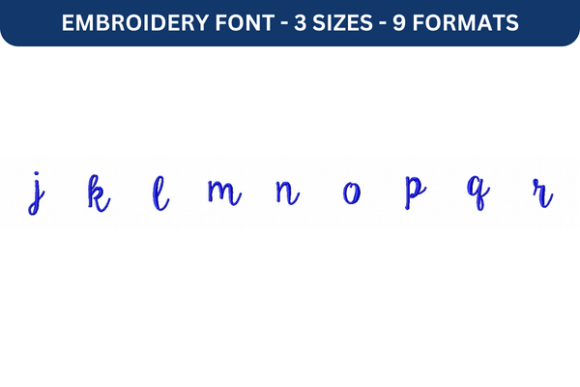
Ke Aloha Font Lower J to R: A Versatile Embroidery Font for Creative Projects
Embroidery fonts have become an essential tool for designers, crafters, and creators looking to add a personal touch to their projects. Among the many options available, Ke Aloha Font Lower J to R stands out as a high-quality resource that offers both functionality and aesthetic appeal. This font is designed specifically for use in machine embroidery, making it ideal for those who want to personalize fabrics with names, dates, quotes, or custom text.
What Is Ke Aloha Font Lower J to R?
Ke Aloha Font Lower J to R is a specialized embroidery font that focuses on the lowercase letters from J through R. It is crafted with precision to ensure clarity and readability when stitched onto fabric. Unlike generic fonts that may not translate well into embroidered designs, this font maintains its integrity at various sizes and stitch densities.
The font is part of a larger collection, but its focus on the J to R range makes it particularly useful for specific design needs. Whether you're creating personalized gifts, custom apparel, or decorative items, this font provides the flexibility to adapt to a wide range of applications.
Key Characteristics and Purpose
One of the standout features of Ke Aloha Font Lower J to R is its attention to detail. Each letter is carefully designed to be legible even when scaled down, which is crucial for embroidery where space can be limited. The font also supports multiple embroidery file formats, including .dst, .pes, .exp, and .jef, ensuring compatibility with a variety of embroidery machines.
The purpose of this font extends beyond aesthetics. It serves as a practical solution for users who need reliable, high-quality text for their embroidery projects. Its versatility allows it to be used across different industries, from fashion and home décor to promotional materials and event branding.
Additionally, the font’s consistent stroke width and spacing contribute to a clean, professional look. These characteristics make it especially suitable for projects where visual consistency is important, such as logos, signage, or branded merchandise.
Strengths and Practical Value
Ke Aloha Font Lower J to R excels in several areas that make it a valuable addition to any embroidery toolkit. First and foremost, its high quality ensures that the final embroidered results are crisp and well-defined. This is particularly important for users who rely on embroidery for commercial or professional purposes.
From a usability standpoint, the font is user-friendly. Its straightforward design allows for easy customization, making it accessible to both beginners and experienced embroiderers. The ability to adjust stitch density and thread color further enhances its practical value, enabling users to tailor the design to their specific needs.
Another advantage is the font’s adaptability. It can be used in a wide range of settings, from small-scale personal projects to large-scale production runs. This flexibility makes it a great choice for entrepreneurs, small business owners, and creative professionals who require a dependable font for their embroidery needs.
Real-World Performance and Reliability
When evaluating the performance of Ke Aloha Font Lower J to R, it’s important to consider how it holds up in real-world scenarios. In practice, the font performs exceptionally well, delivering consistent results across different fabric types and stitch settings.
Users have reported that the font maintains its clarity even when stitched at smaller sizes, which is a common challenge in embroidery. This reliability is especially beneficial for projects that require intricate detailing or compact text placement.
However, like any embroidery font, there are some limitations to be aware of. For instance, while the font is excellent for standard text, it may not be suitable for more complex designs that require special characters or symbols. Users should also ensure that their embroidery software is compatible with the file formats provided.
Who Benefits Most from Ke Aloha Font Lower J to R?
Ke Aloha Font Lower J to R is best suited for individuals and businesses that prioritize quality, consistency, and versatility in their embroidery projects. This includes:
- Crafters and hobbyists looking to personalize items such as clothing, bags, and accessories.
- Entrepreneurs and small business owners who need reliable fonts for product labeling, branding, and packaging.
- Freelance designers and marketers working on custom projects for clients or launching their own creative ventures.
- Educators and publishers creating educational materials or promotional items that require clear, readable text.
- Event planners and organizers needing customized embroidery for invitations, signage, or promotional giveaways.
These users will find that the font’s simplicity and reliability make it an efficient choice for their workflow, allowing them to focus on creativity rather than technical hurdles.
Professional Observations and Recommendations
From a professional standpoint, Ke Aloha Font Lower J to R represents a thoughtful approach to embroidery font design. Its emphasis on clarity, consistency, and compatibility aligns well with the needs of both casual users and industry professionals.
For those new to embroidery, this font is an excellent starting point due to its ease of use and adaptability. More experienced users will appreciate its versatility and the ability to customize it to suit different project requirements.
It’s also worth noting that the font’s availability in multiple file formats adds to its long-term value. As technology evolves, having access to a range of formats ensures that the font remains relevant and functional across different platforms and devices.
While the font has its strengths, it’s important to consider whether it fits your specific needs. If you frequently work with special characters or require a broader character set, you may want to explore other fonts that offer additional features.
Conclusion
Ke Aloha Font Lower J to R is a well-crafted embroidery font that delivers on its promise of quality, reliability, and versatility. Its focus on the J to R range, combined with support for multiple file formats, makes it a valuable asset for a wide range of creative and commercial applications.
Whether you're a hobbyist looking to add a personal touch to your projects or a professional seeking a dependable font for your workflow, this font offers a practical and effective solution. By understanding its strengths and limitations, you can determine whether it aligns with your goals and helps you achieve the desired results in your embroidery work.